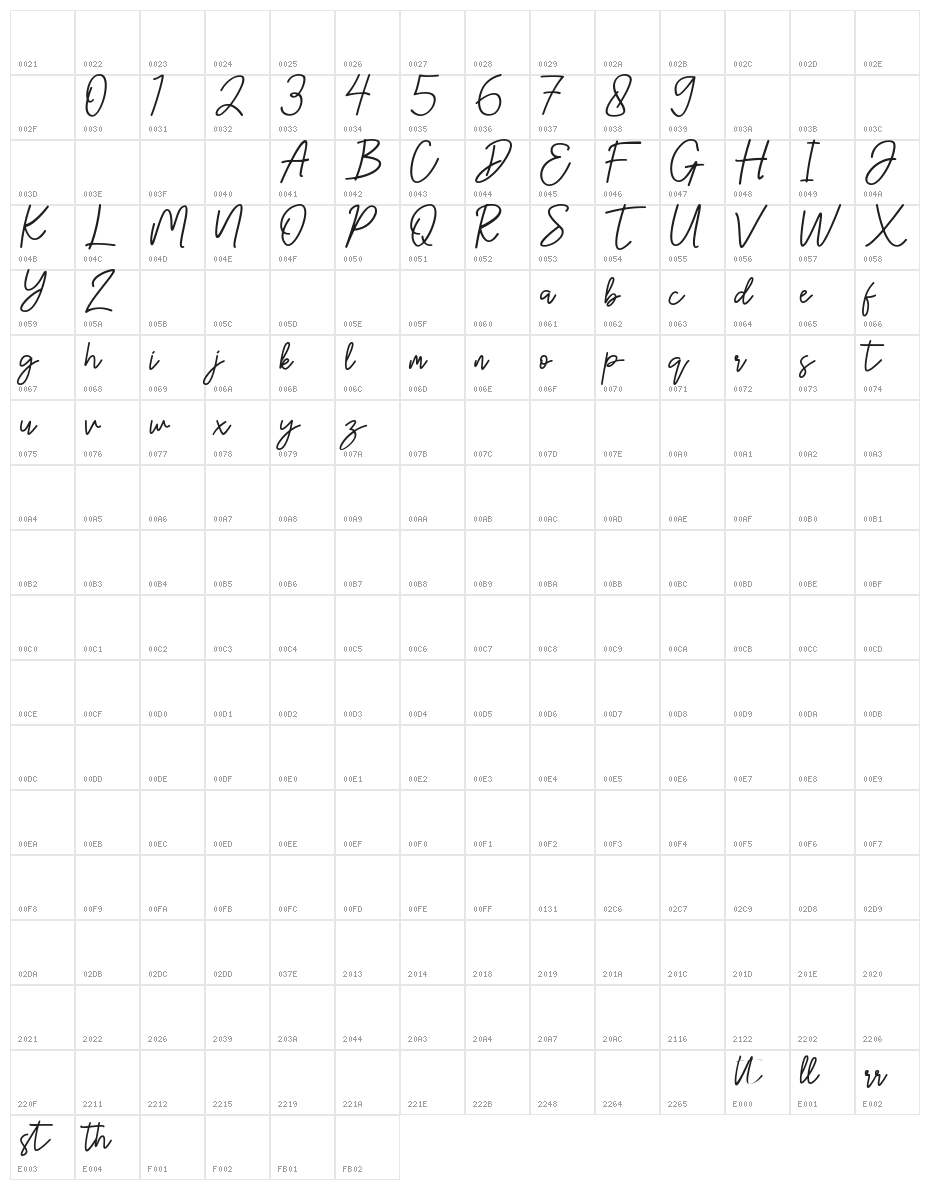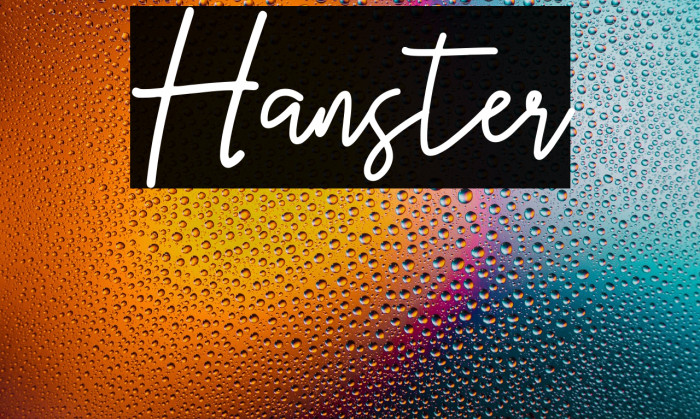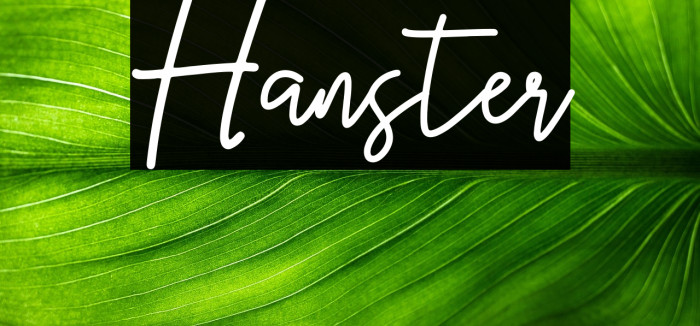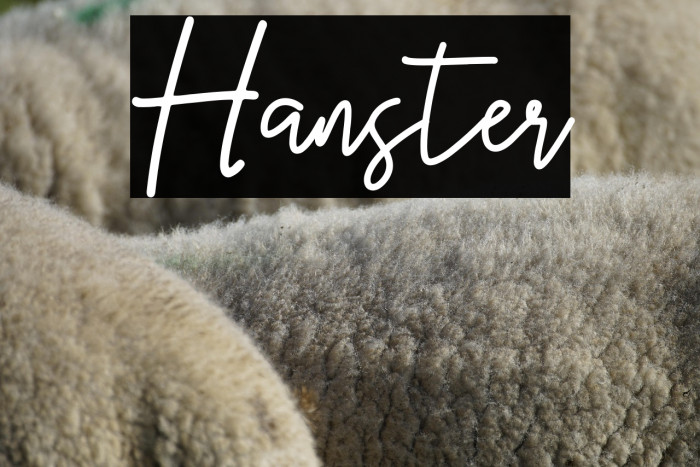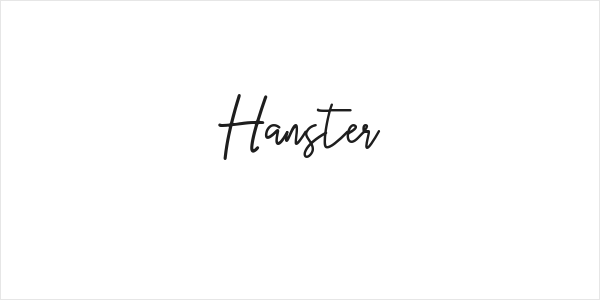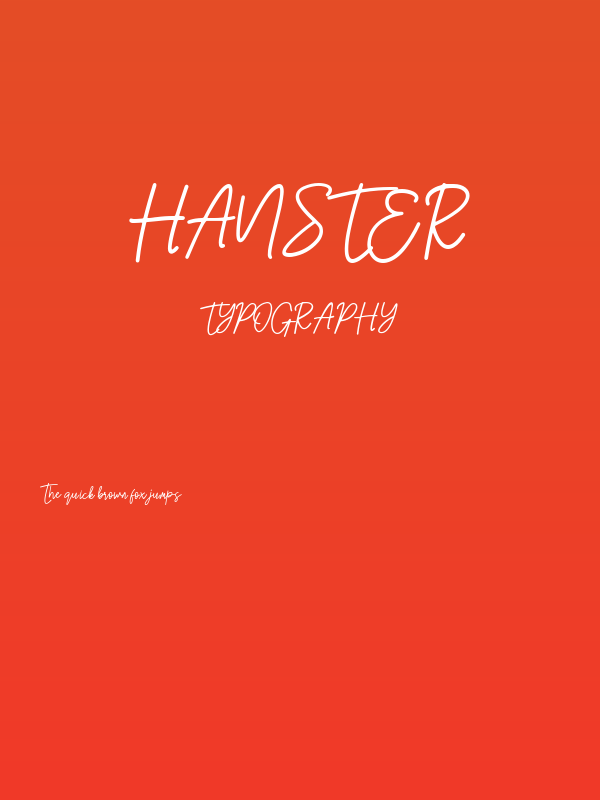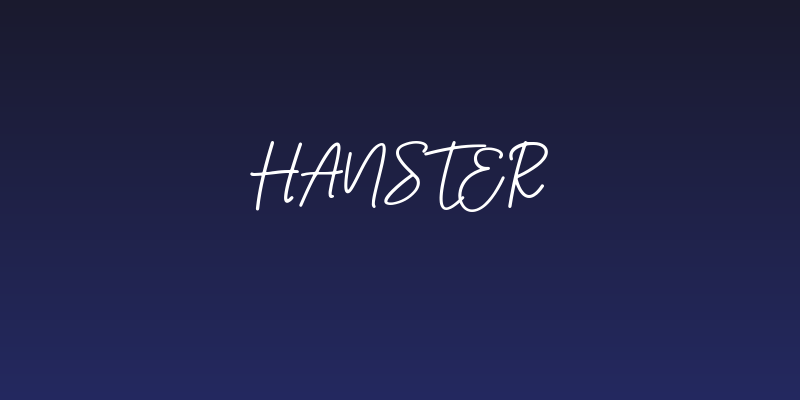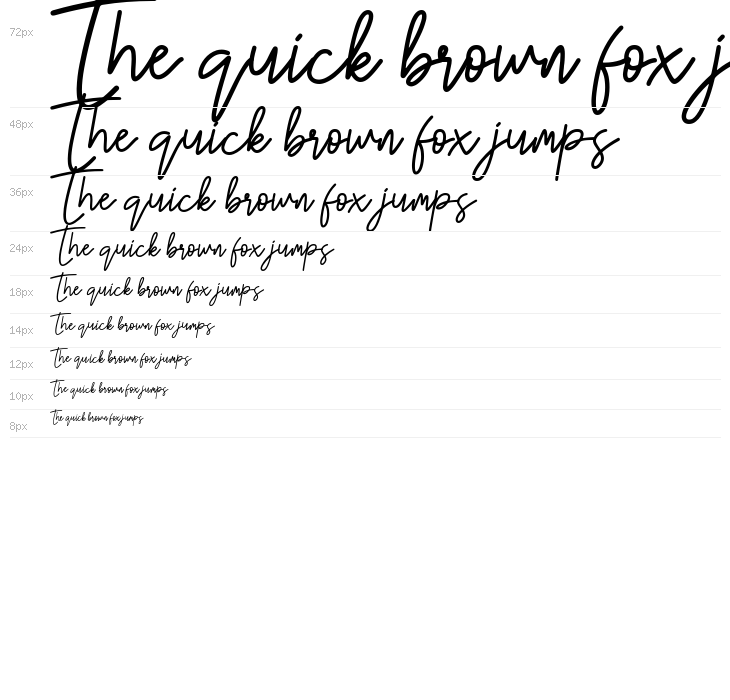
Hanster Font
Hanster Description
This font exudes a casual and playful handwritten style, characterized by its fluid and connected strokes. The uppercase letters maintain a consistent height, while the lowercase letters exhibit a charming irregularity, adding to the font's informal appeal. The numerals are clear and legible, matching the overall aesthetic with their rounded and slightly tilted forms. Special characters are seamlessly integrated, maintaining the font's cohesive look. The strokes are moderately thick, providing good readability without sacrificing the handwritten feel. This font is perfect for projects that require a personal touch, such as invitations, greeting cards, or branding materials that aim to convey warmth and approachability.
| Overall Style | Casual |
| Use Case | Headlines, Logos, Invitations |
| Proposed Projects | Ideal for invitations, greeting cards, personal branding, and casual design projects. |